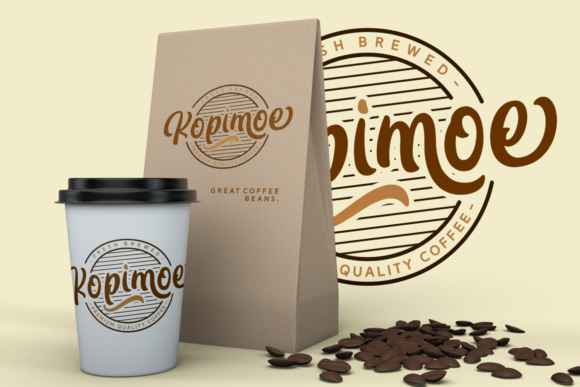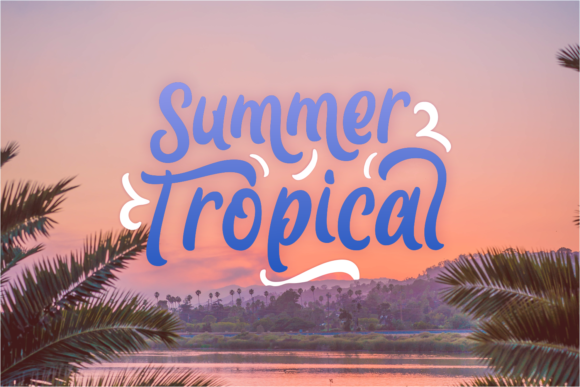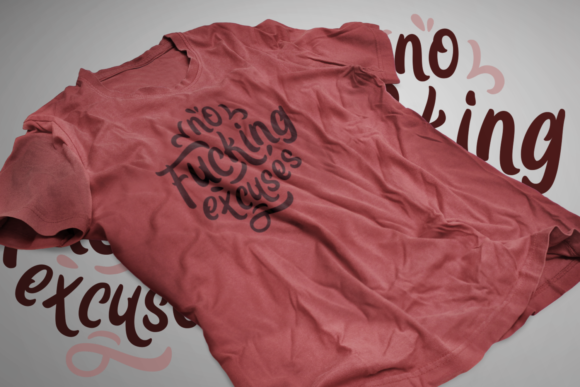
Freak Chicken Font: Unleash Your Creativity with this Playful Script Font
Are you tired of using the same old boring fonts for your designs? Look no further! Introducing the Freak Chicken Font, a playful script font that is sure to add a dash of excitement to your creative projects. With its fascinating shapes and numerous alternate characters, this font is perfect for designers and crafters who want to make their text stand out from the crowd.
What is Freak Chicken Font?
Freak Chicken Font is a unique and creative script font that is designed to add a touch of whimsy to your designs. Its playful and irregular shapes give it a hand-drawn feel that is perfect for a variety of projects, from crafting and scrapbooking to graphic design and digital art.
Key Features of Freak Chicken Font
• Playful Script Font: Freak Chicken Font is a script font that features playful and irregular shapes, giving it a unique and creative feel.
• Alternate Characters: This font includes many alternate characters that can be used to add variety and interest to your text.
• Hand-Drawn Feel: The irregular shapes and lines of Freak Chicken Font give it a hand-drawn feel that is perfect for crafty and creative projects.
Uses for Freak Chicken Font
Freak Chicken Font is a versatile font that can be used for a variety of projects, including:
• Crafting and Scrapbooking: Add a touch of whimsy to your scrapbook pages and craft projects with Freak Chicken Font.
• Graphic Design: Use Freak Chicken Font to add a creative and playful touch to your graphic design projects, such as brochures, flyers, and posters.
• Digital Art: Freak Chicken Font is perfect for digital artists who want to add a hand-drawn feel to their artwork.
• Social Media: Use Freak Chicken Font to create eye-catching social media graphics and posts that will stand out from the crowd.
Tips for Using Freak Chicken Font
Here are a few tips for using Freak Chicken Font in your designs:
• Experiment with Alternate Characters: Take advantage of the many alternate characters in Freak Chicken Font to add variety and interest to your text.
• Mix and Match: Combine Freak Chicken Font with other fonts to create a unique and creative look.
• Keep it Simple: Don’t overdo it – Freak Chicken Font is best used in moderation to add a touch of whimsy to your designs.
Freak Chicken Font is a playful and creative script font that is perfect for designers and crafters who want to add a touch of whimsy to their projects. With its fascinating shapes and numerous alternate characters, this font is sure to make your text stand out from the crowd. So why settle for boring and ordinary fonts when you can use Freak Chicken Font to unleash your creativity and take your designs to the next level?
Whether you’re a seasoned designer or a crafty beginner, Freak Chicken Font is a great addition to your font collection. So go ahead, get creative, and have fun with Freak Chicken Font!